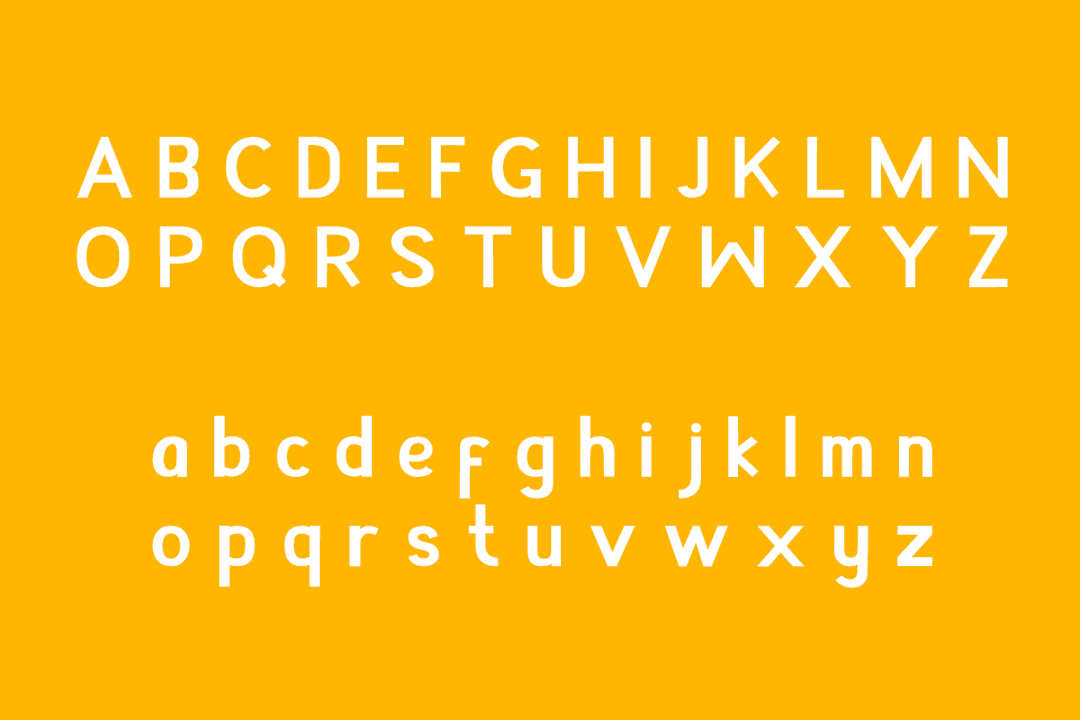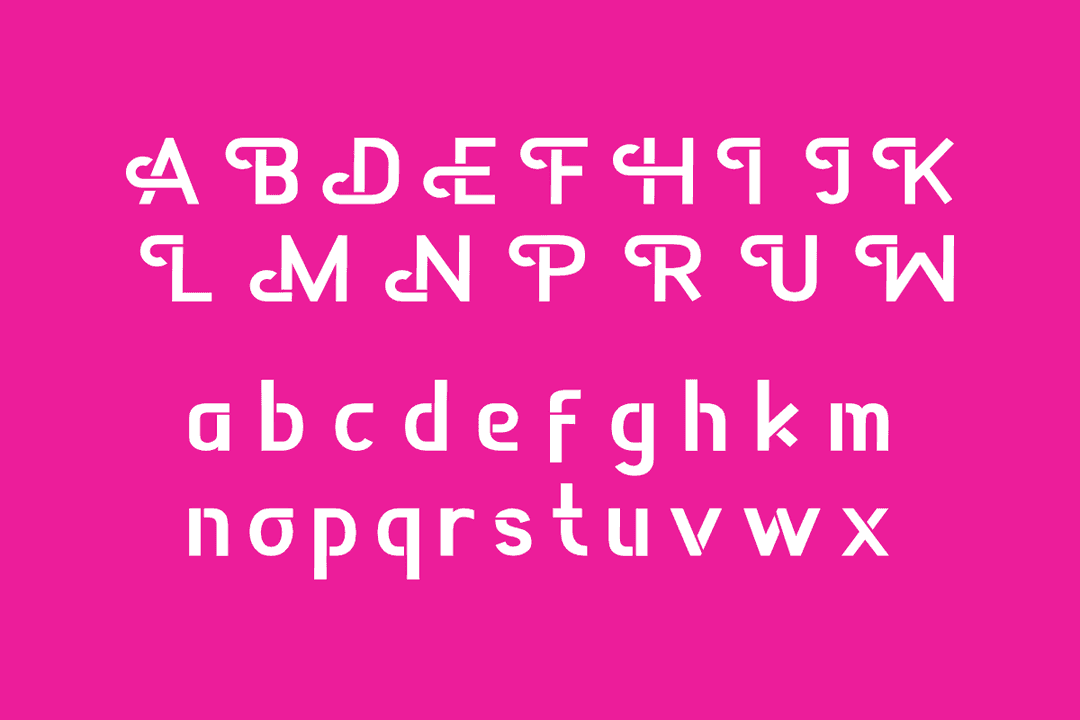
Appendix is an enjoyable show sans serif font that adds life and fun to any text, no matter its subject matter. PUA encoded, so all characters and symbols can be easily accessed!